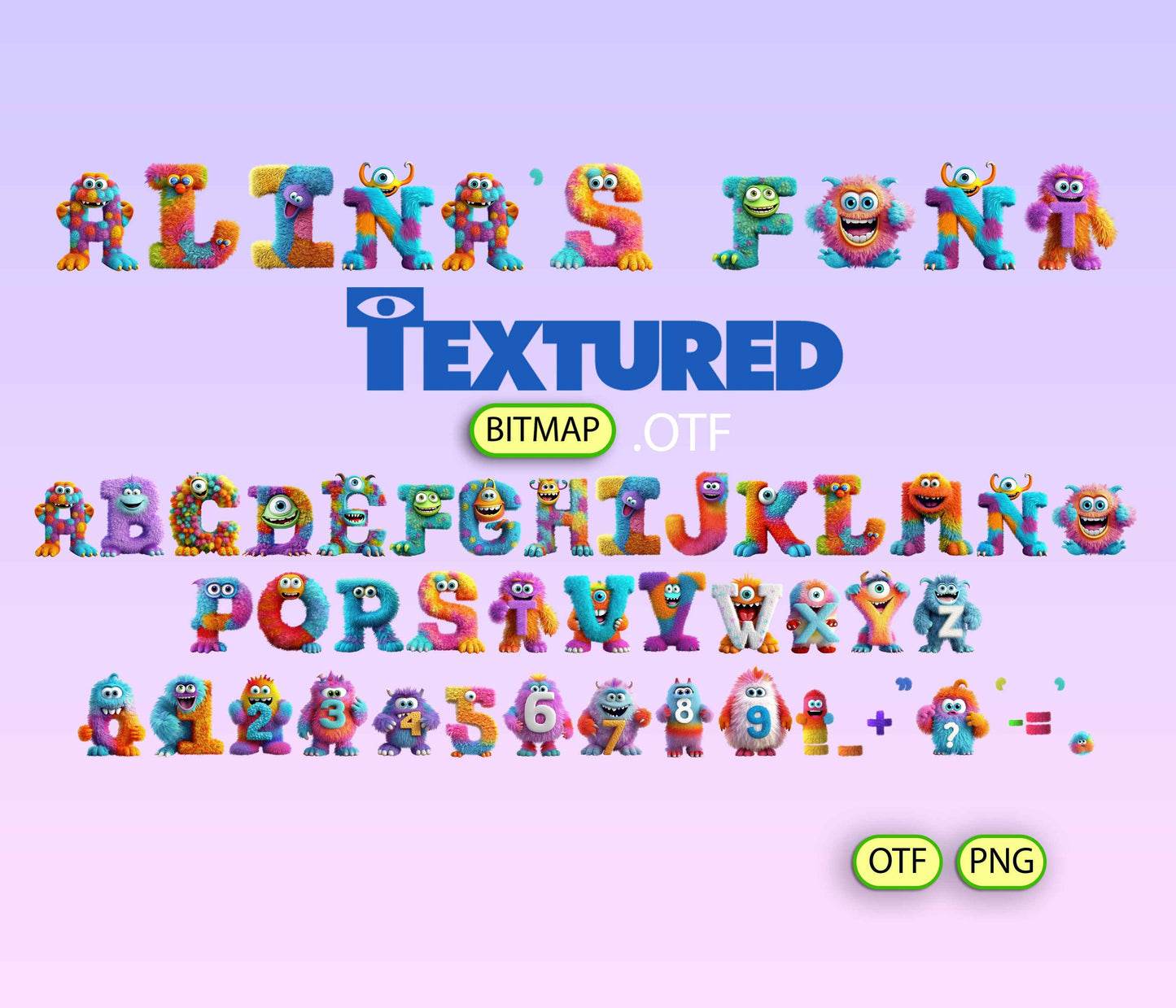
Hey there, fellow monster fans and crafters! Get ready to step into the world of friendly scares with Alina's Friendly Scarer Textured Font —a textured bitmap font that's just as fun and quirky as our favorite monsters. This font is a must-have if you want to add some animated magic to your projects.
Got a Cricut machine? Fantastic! Friendly Scarer's Colored Font is perfect for all sorts of cool stuff. Want to make adorable cake toppers for a monster-themed birthday? Or how about some decals for your kid's room? This textured font will make everything look like it popped straight out of a monster university.
But that's not all! Use this font to make birthday invitations that'll have everyone buzzing with excitement. They'll look so good, your guests will think a little human friend herself scribbled them! Like making your own clothes? Our bitmap font is perfect for designing t-shirts that'll make you the coolest monster fan on the block.
This font is perfect for:
- Creating monster-themed party decorations
- Designing custom apparel for monster enthusiasts
- Crafting unique greeting cards with a friendly scare twist
- Making eye-catching social media graphics
- Personalizing school supplies with monster charm
- Developing fun, monster-inspired educational materials
- Designing logos for children's entertainment businesses
- Creating playful website headers for family-friendly blogs
- Crafting memorable invitations for costume parties
- Adding a touch of monster magic to DIY craft projects